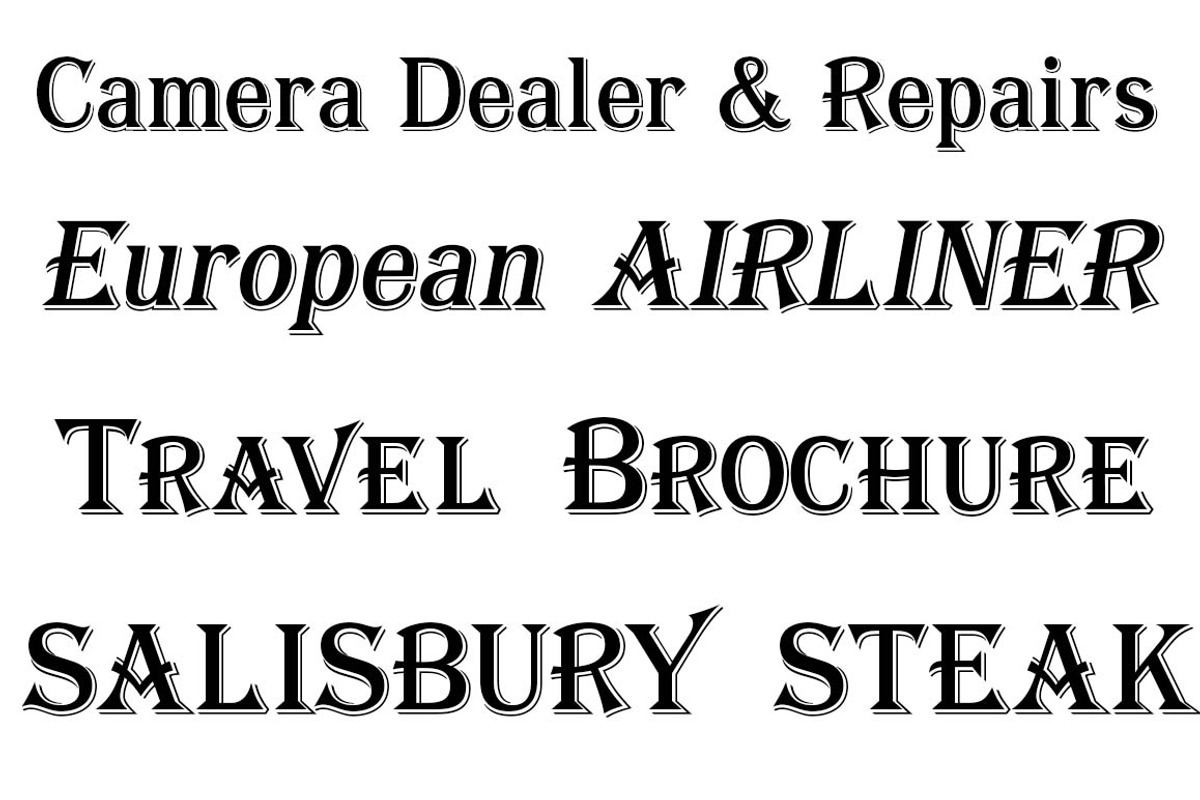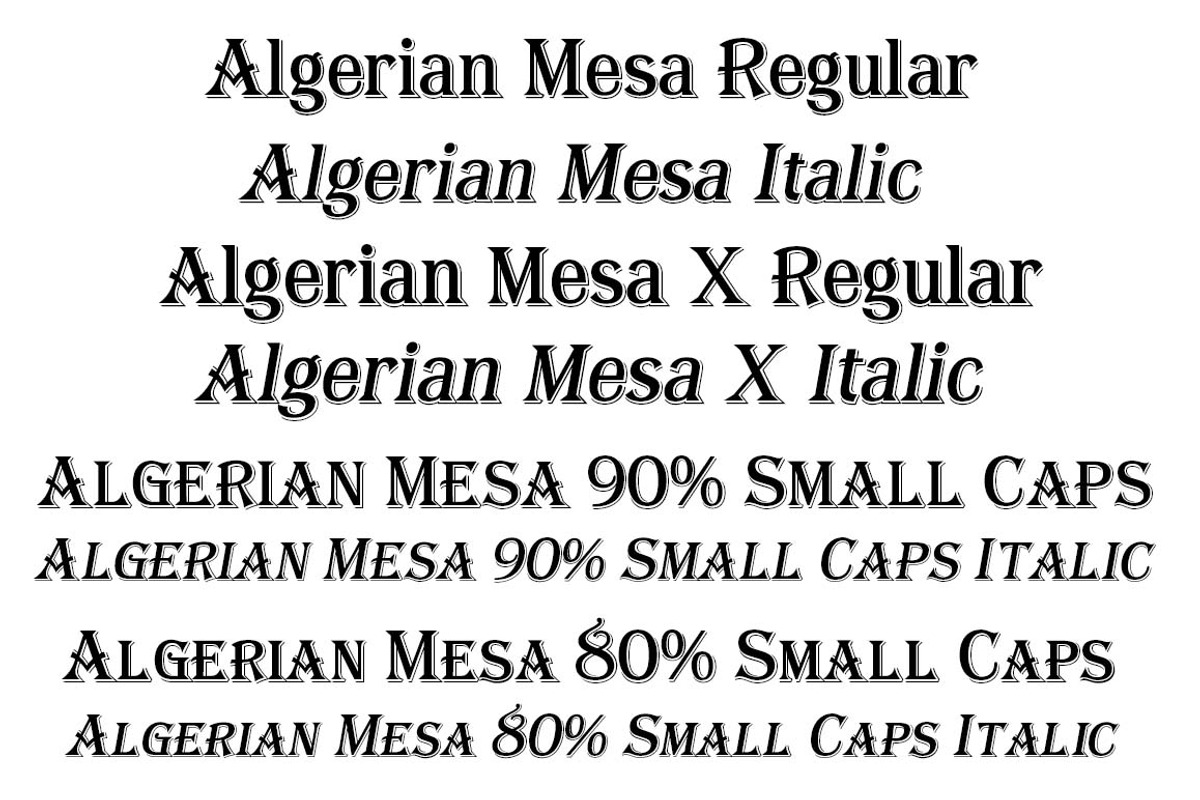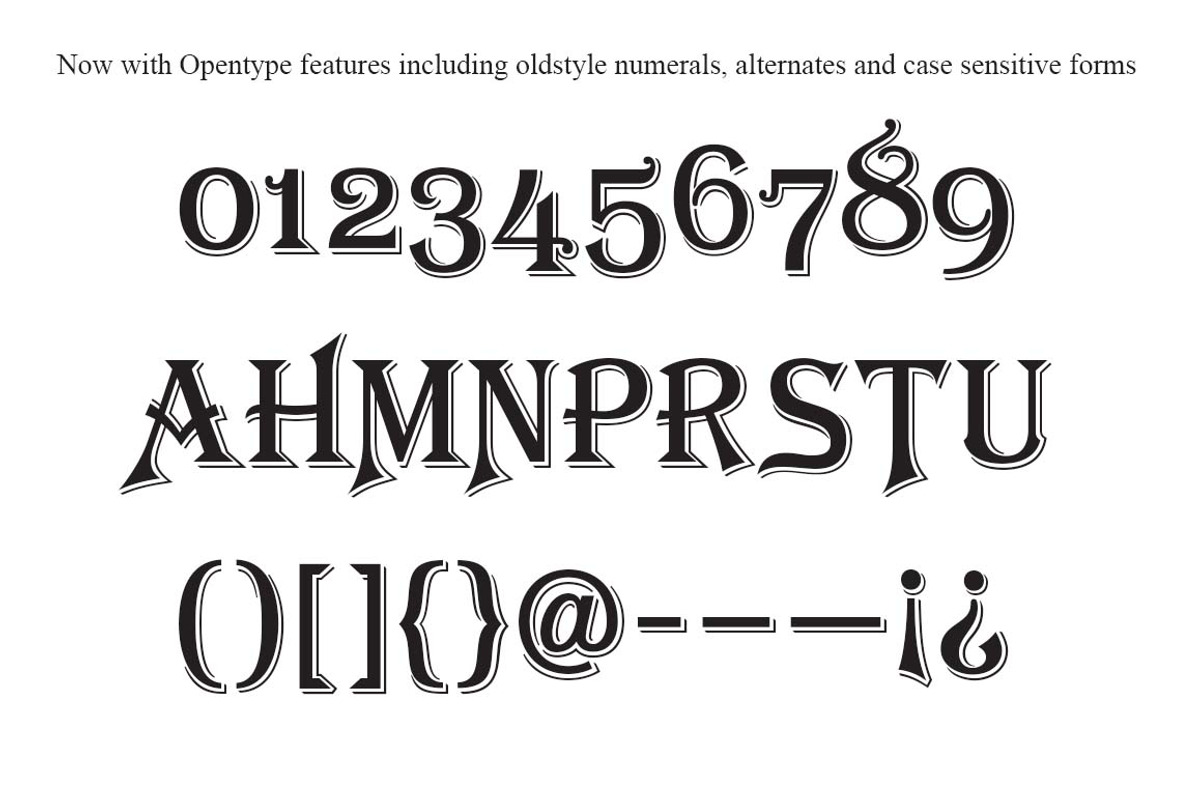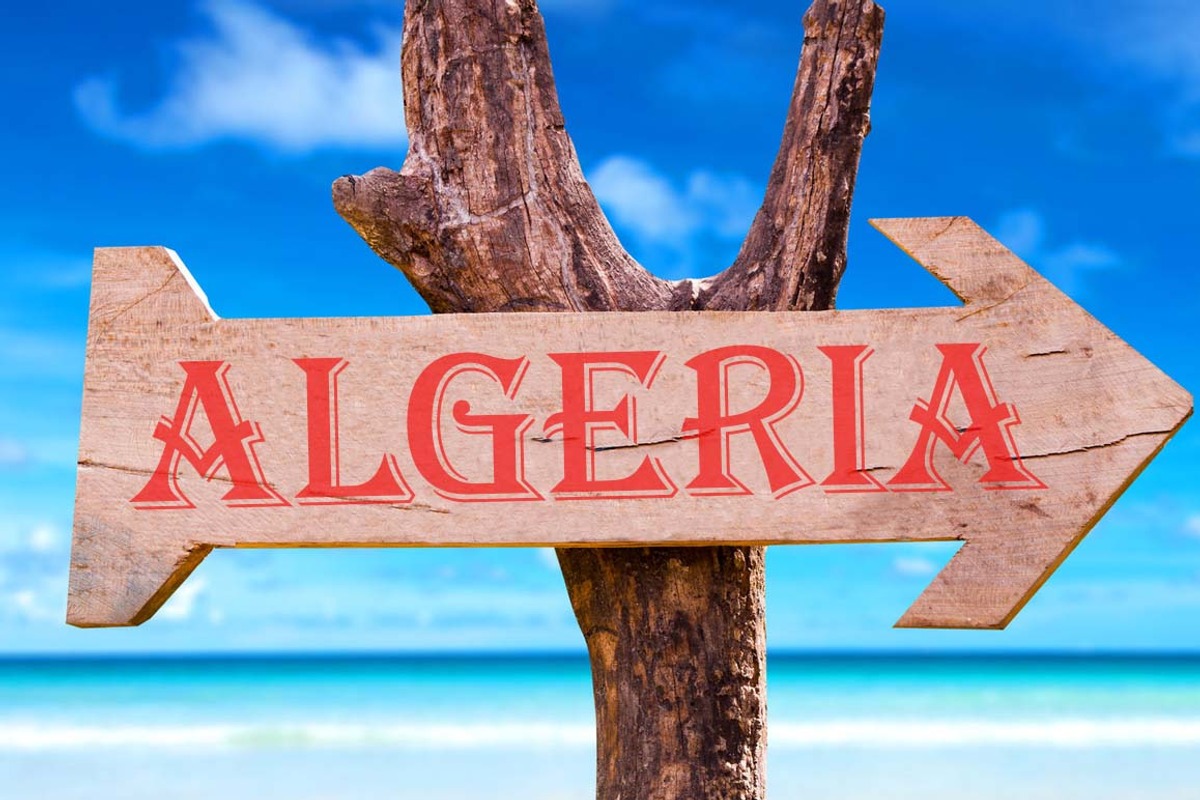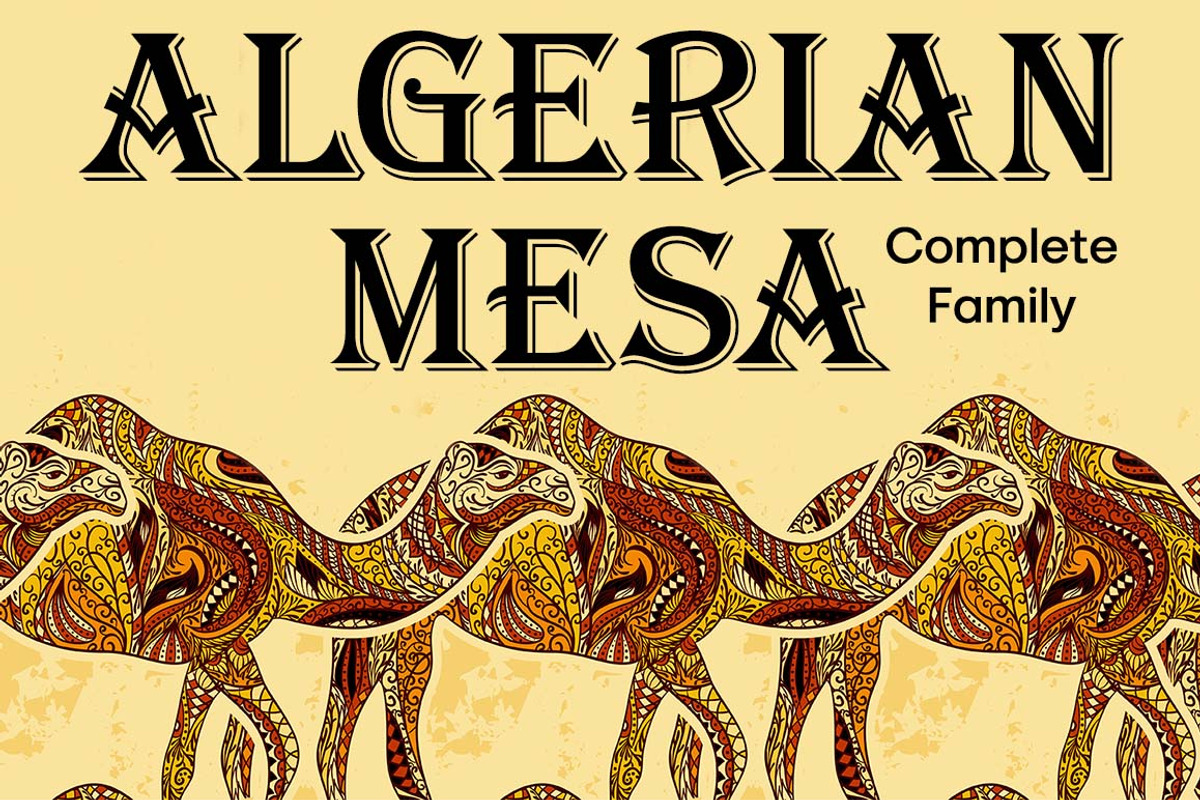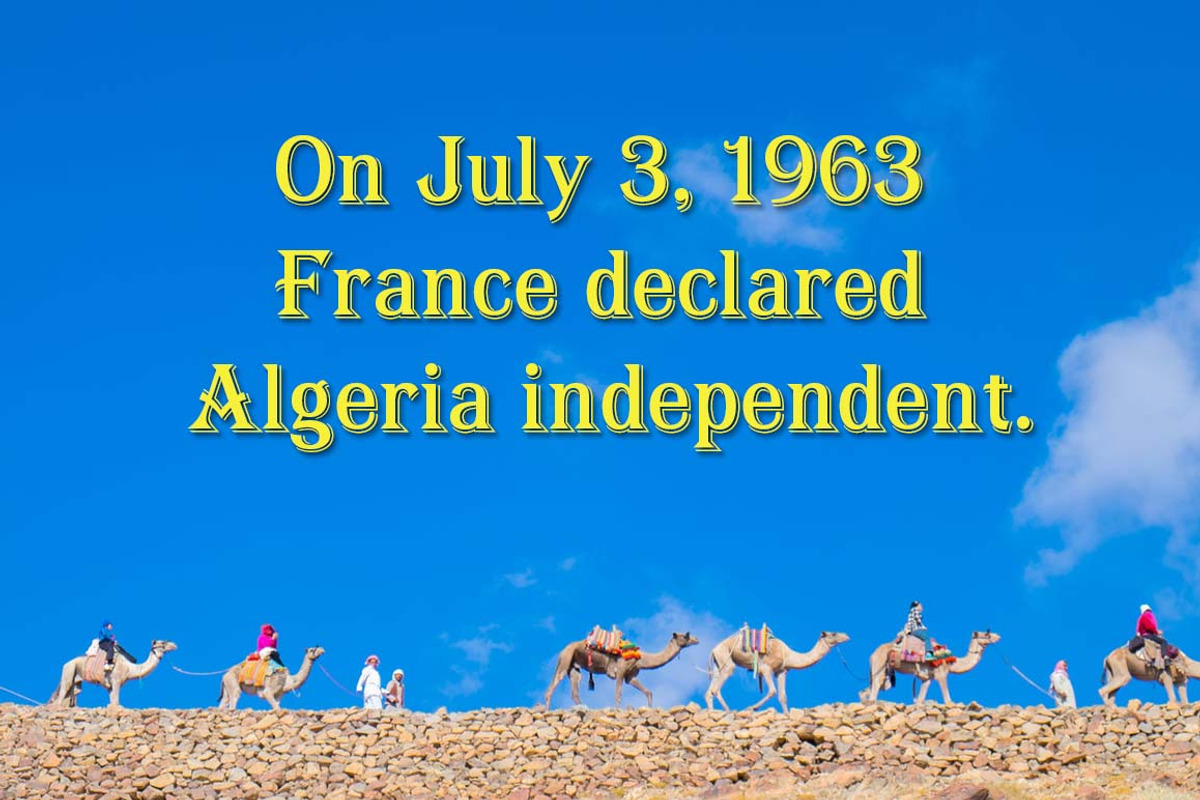
Algerian Mesa Complete
Inspired by the old Stephenson Blake Caps only font Algerian from 1908, this version, named Algerian Mesa, has been freshened up with a new matching lowercase.
The original Algerian, on page 142 of the 1908 Stephenson Blake specimen book, was a small caps to a more decorative lining caps and the plain black version, without the shadow line, was named Gloria.
Also on page 142 of the 1908 Stephenson Blake specimen book is a shaded Latin font that gave me the idea for the Alt version of Algerian Mesa.
The Alt version works well at smaller point sizes combined with the regular Algerian Mesa font on the same page.
New for 2016 were Opentype features including original alternates, oldstyle numerals and case sensitive forms, also new is a fully usable Alt version.
In this new 2022 version of Algerian Mesa we've expanded the family to include two sets of small caps, the S version is at 90% and the SC version is at 80% the height of the uppercase.
We've also added a larger x-height version.
We've also changed the accent marks acute, grave, circumflex and caron, we've straightened the sides removing the curved flair design in favor of a more traditional look.
And last we've added new italics to Algerian Mesa.